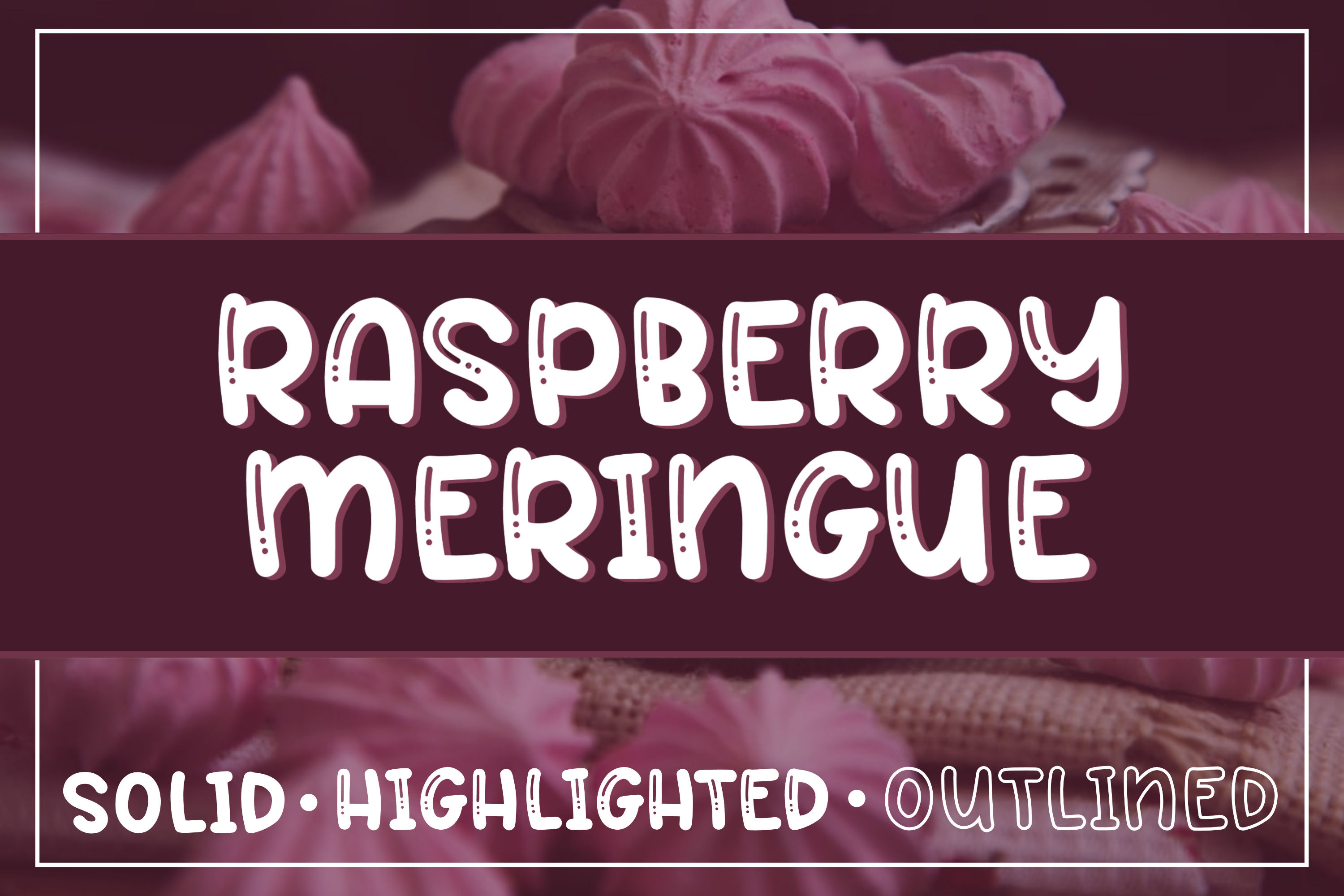
Raspberry Meringue Font Trio
Raspberry Meringue is an all caps font trio with solid, highlighted, and outlined versions. The trio comes with 3 files that each include capital letters A-Z, numbers 0-9, accented characters and punctuation. It's a versatile font that's great for a variety of vinyl, print and sublimation projects!!!